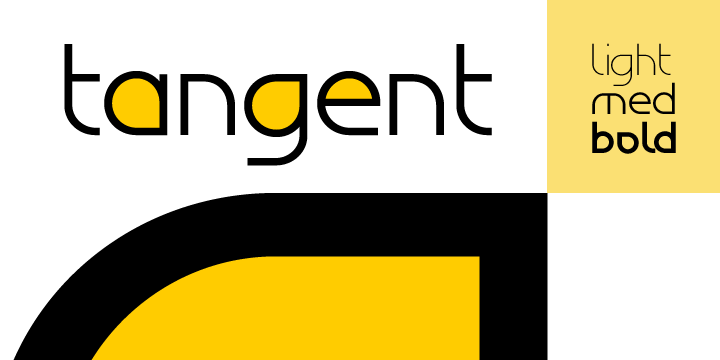
• Tangent™
Tangent was born out of a simple idea:
I began the project with a circle to form the letter ‘o’ and after squaring off one corner, ended up with a letter form I hadn't seen elsewhere; this for me was motivation enough to see if I could complete the alphabet. Initially sketching out the characters to get an overview, I employed the angle wherever possible to create the tangential style of this particular typeface. I'm fortunate the name I chose hadn't been taken as it describes the font perfectly! See also Tangent Rounded & Tangent Semi Serif variations.
Tangent Light
Tangent Medium
Tangent Bold